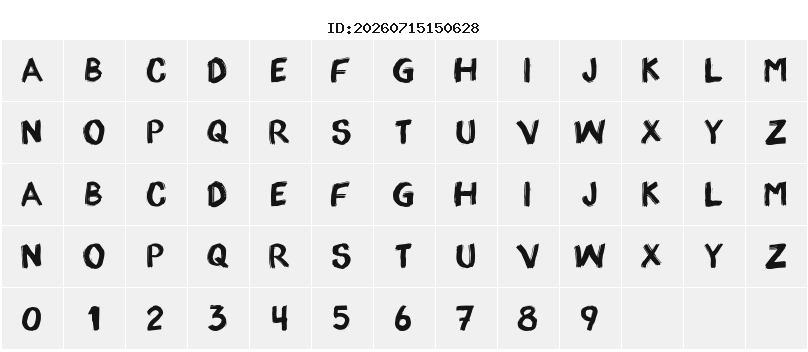
• Font Name: appo paint
• Full Font Name: appo paint
About appo paint.ttf
appo paint.ttf is a modern, elegant sans-serif font designed for ultimate readability and visual harmony. Perfect for branding, headlines, web design, and print materials.